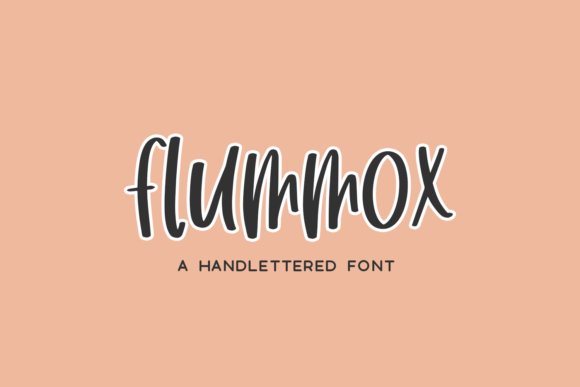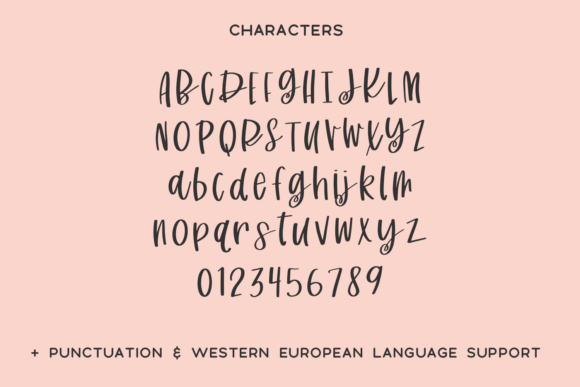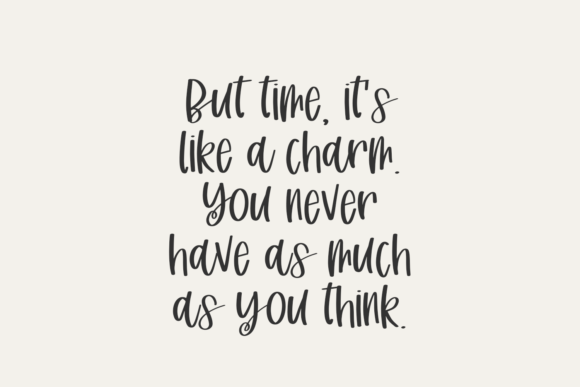
About Flummox Font
Flummox Sans is a bouncy semi-cursive font with cute flourished descenders. Flummox is a medium-thickness font with a super smooth edge, perfect for vinyl cutting or crafting.
Flummox Sans is best for:
– logos + branding
– crafting projects
– header elements that need a handwritten touch
– quote graphics for social media